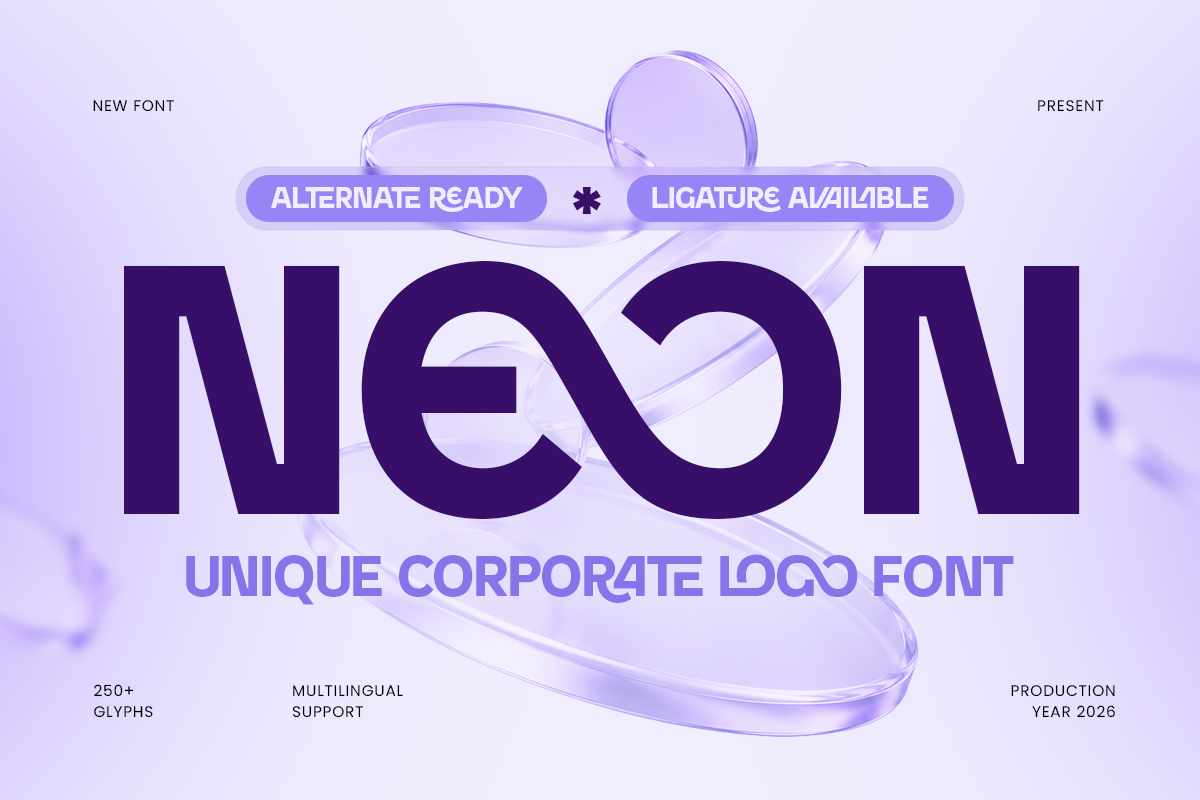
Neon
-Corporate Logo FontNeon - Corporate Logo Font
Neon is a Unique Modern Corporate Logo Font crafted for contemporary businesses, professional identities, and distinctive brand communication. Inspired by modern corporate typography and clean display forms, Neon combines structured letterforms with unique details to create a strong and recognizable visual presence.
With its balanced proportions, bold character, and versatile design, Neon works beautifully across logos, corporate identities, technology brands, startup branding, packaging, advertising, and marketing materials. Its modern appearance helps businesses establish a confident and memorable visual direction.
Key Features:
Uppercase & lowercase characters
Numbers & symbols included
Unique modern display letterforms
Professional kerning
Multilingual support
With its distinctive structure and branding-focused character, Neon is designed for projects that need a professional appearance without losing a sense of originality and personality.
Perfect For:
Logo design
Corporate branding
Business identity systems
Technology & startup branding
Packaging design
Advertising materials
Editorial layouts
Social media graphics
Ideal for designers seeking a unique corporate font with a modern personality, strong visual presence, and professional branding appeal.